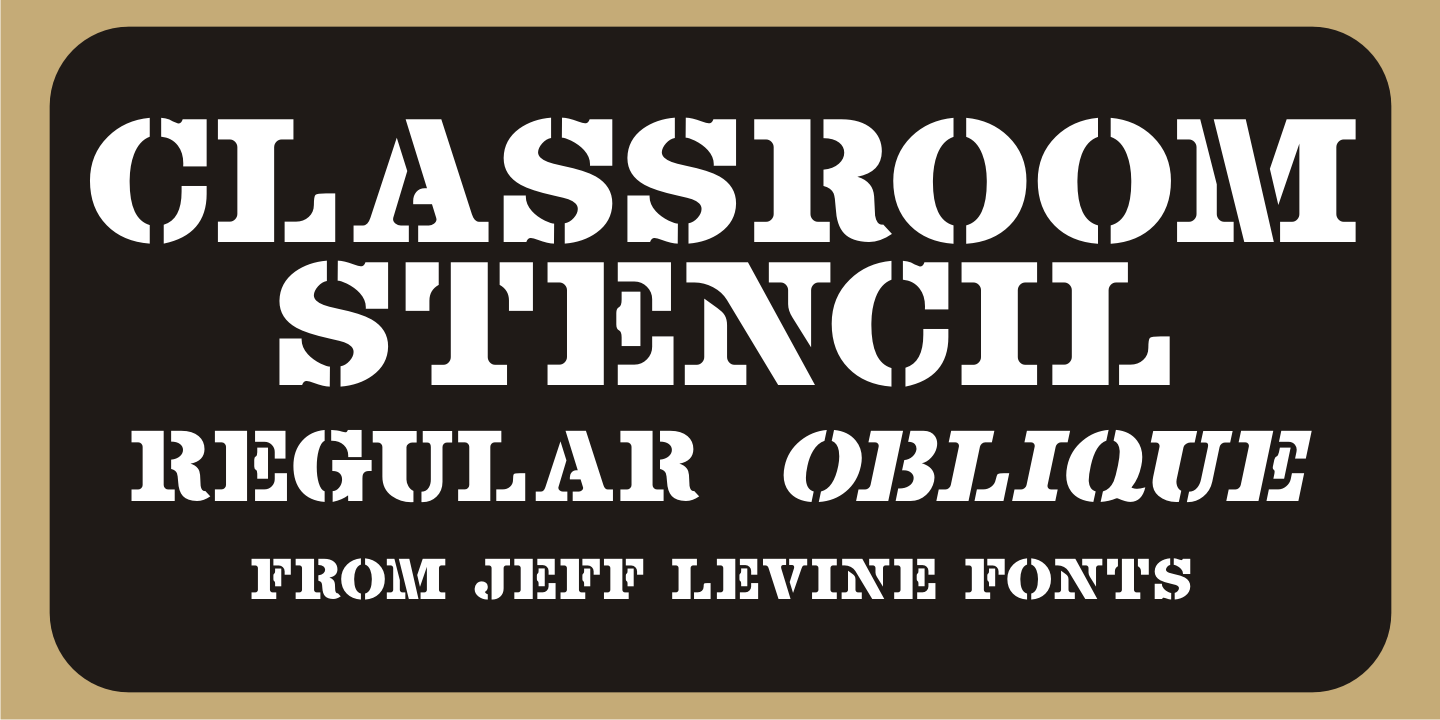
Classroom Stencil
Roman-style stencil fonts have been around for much longer than most people realize⦠from the interlocking brass stencils of the 1880s to the laser-cut plastic stencils of today.
A 1 inch Roman lettering guide [die-cut from oil board with spacing holes for correct alignment] made by the now-defunct Zipatone Corporation in the 1970s was a clone of an existing design of another company; but with variations in certain character shapes.
This then became the working model for Classroom Stencil JNL, which is available in both regular and oblique versions.
Classroom Stencil JNL Oblique
Classroom Stencil JNL Regular